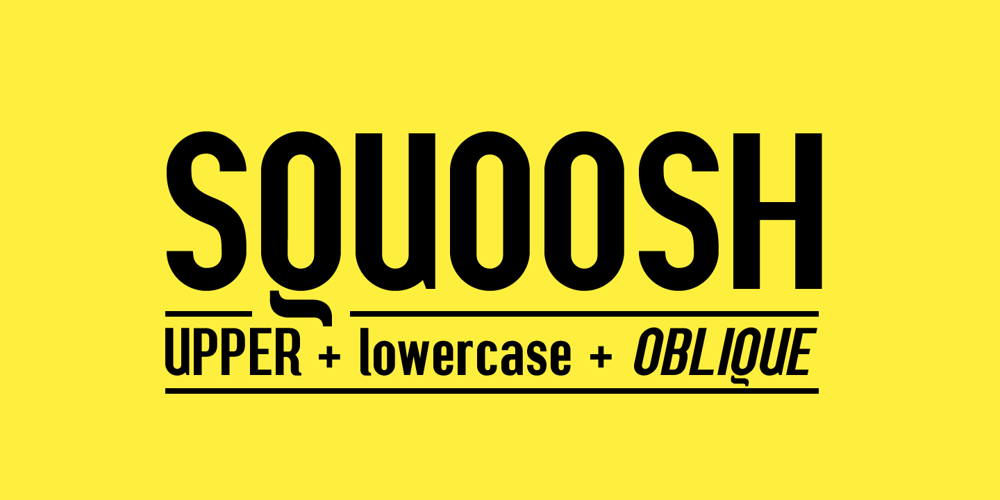
Squoosh Gothic Font Family was designed by Greg Ponchak and published by HyperFluro. Squoosh Gothic contains 2 styles and family package options. Squoosh Gothic is a serious new contender in the arena of headline fonts. Upright and condensed, Squoosh’s whimsical name belies its true nature. Though, that’s not to say it’s totally devoid of a sense of merriment – it just values a more orderly, regulated kind of tomfoolery. Mad-libs for instance, or The Times cryptic crossword. Its mature but unmistakably witty attitude can go a great distance to lending a sense of culture and an air of scintillation to your designs. Don’t miss out on this sanguine new font, Squoosh Gothic from Thinkdust, available now.